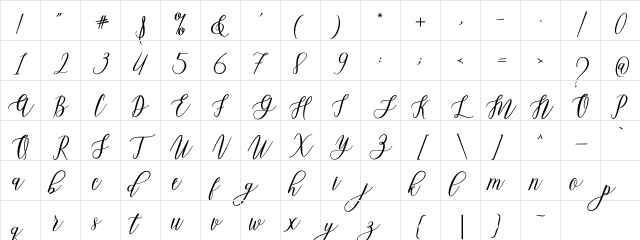
Leadent Script Light Font Preview
Leadent Script Light
Design Context for Leadent Script Typeface
Leadent Script brings a calligraphic fluidity to the page — its connecting strokes and expressive curves give it an unmistakably human quality. The delicate stroke weight brings airiness and refinement to layouts.
Font Pairing: Combine Leadent Script with a simple geometric sans for maximum contrast — the tension between flowing curves and clean structure is a classic typographic pairing.
Pro Tip: Use Leadent Script for short runs of text — names, titles, or taglines. Extended body copy in script faces tires the eye quickly.